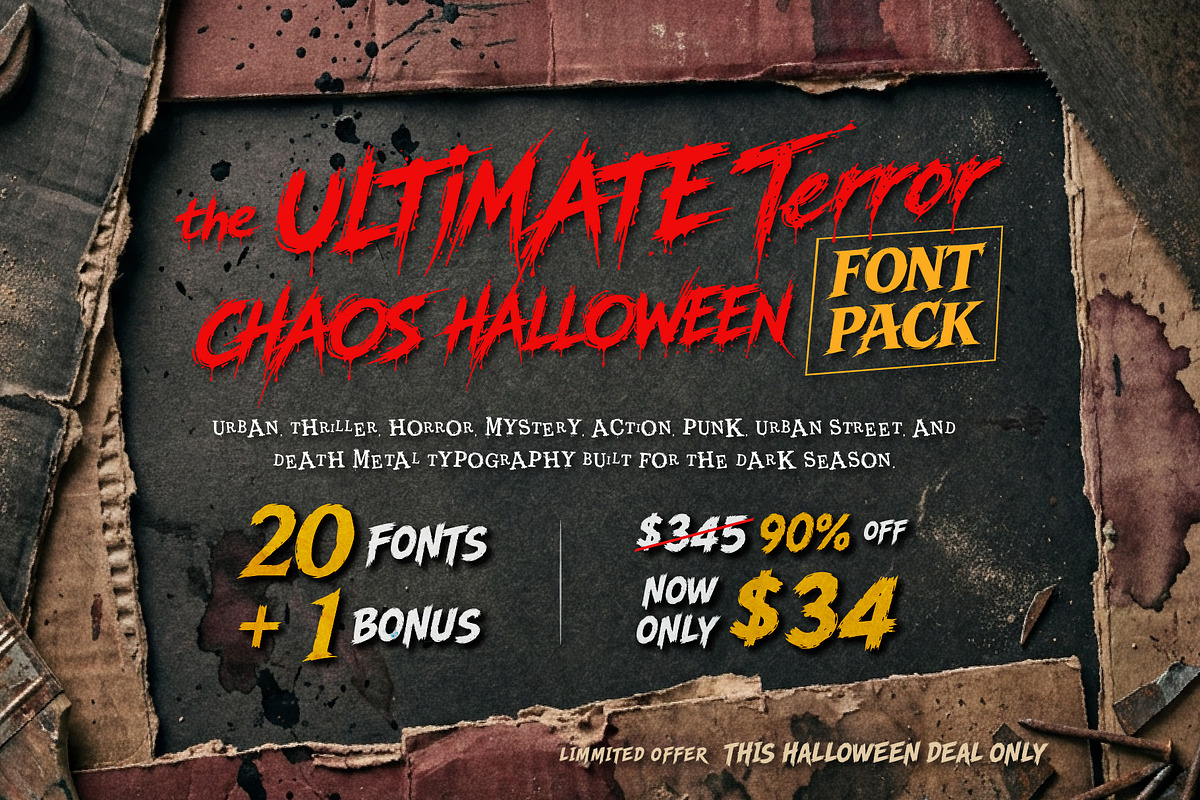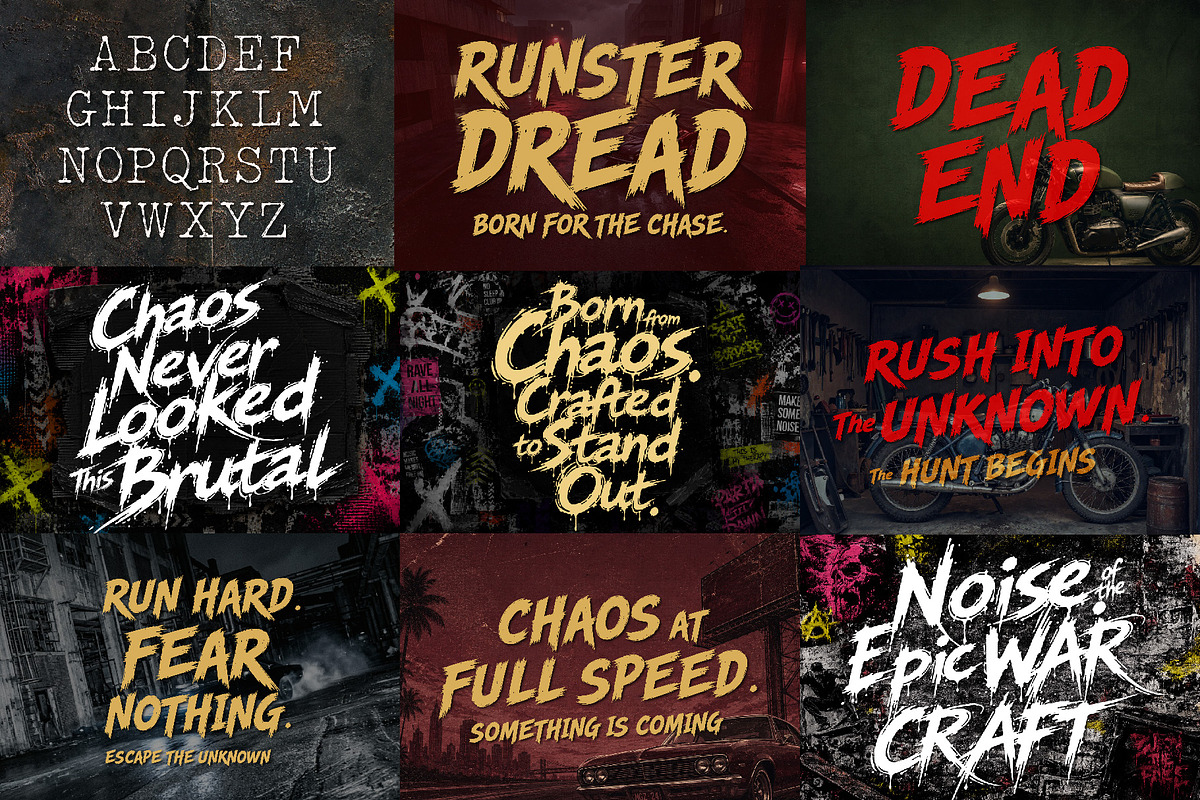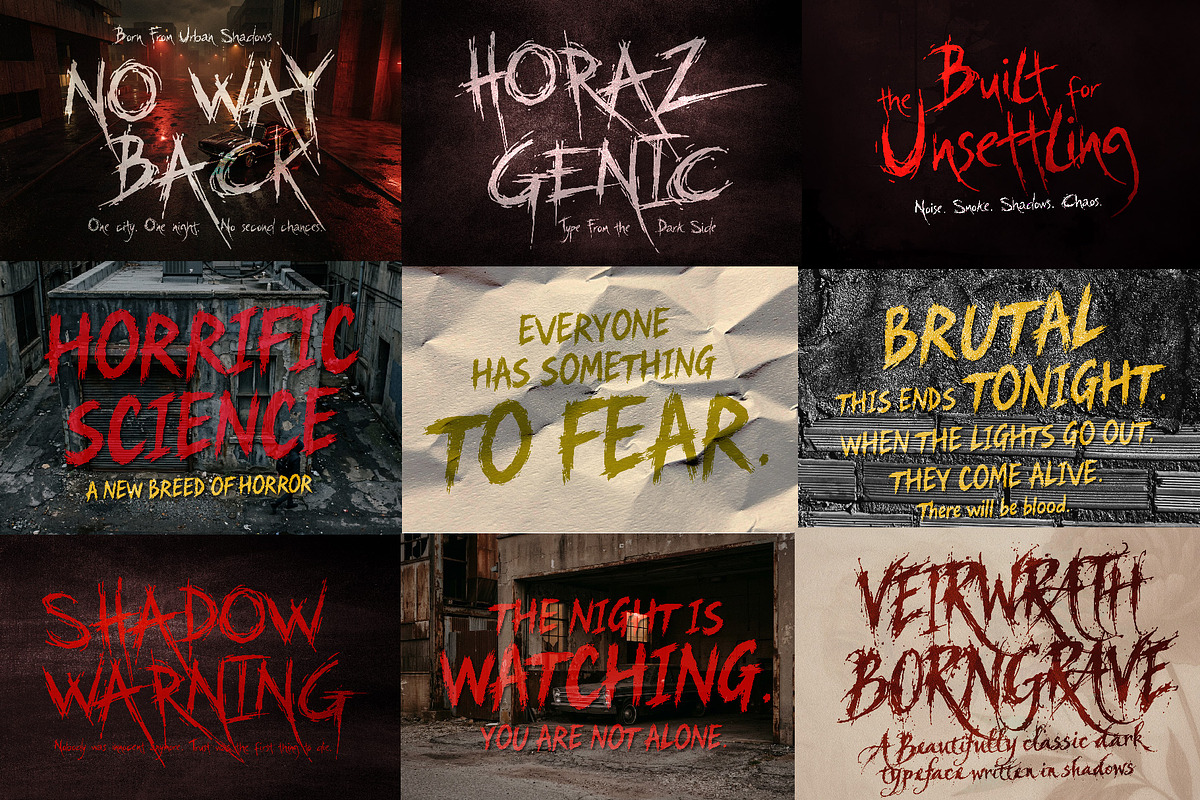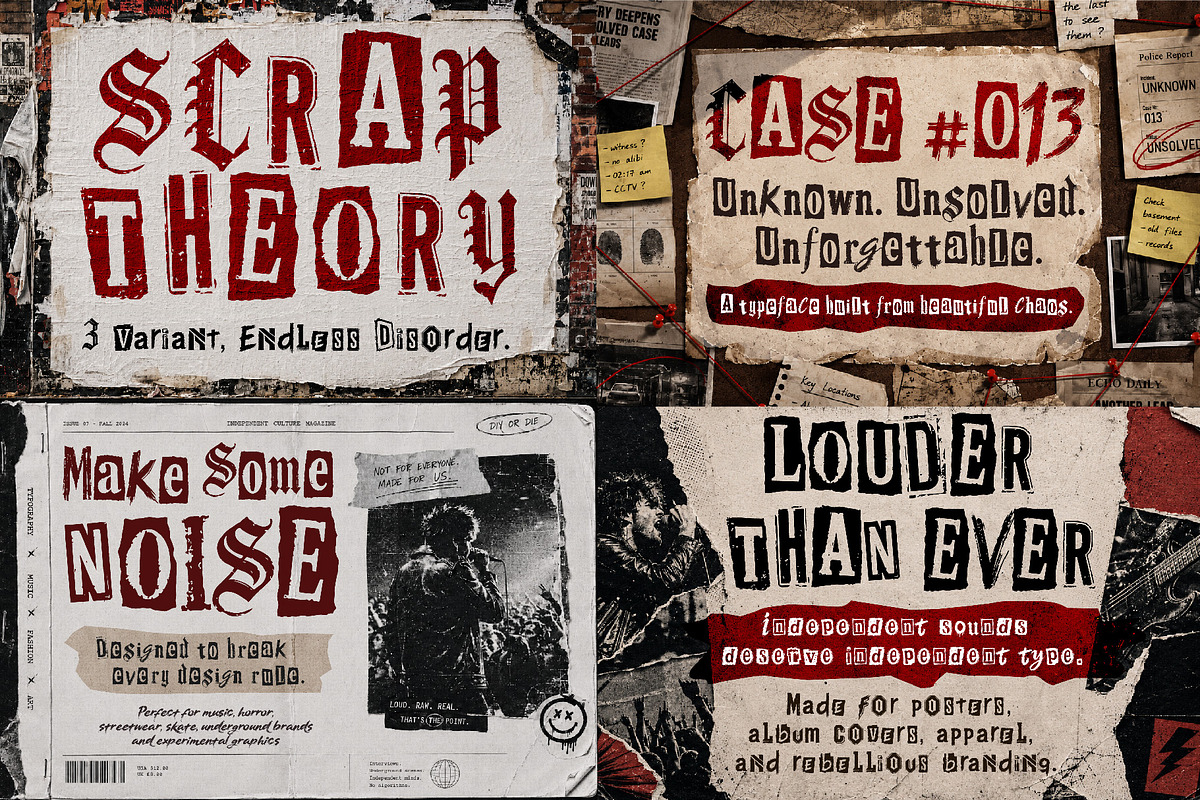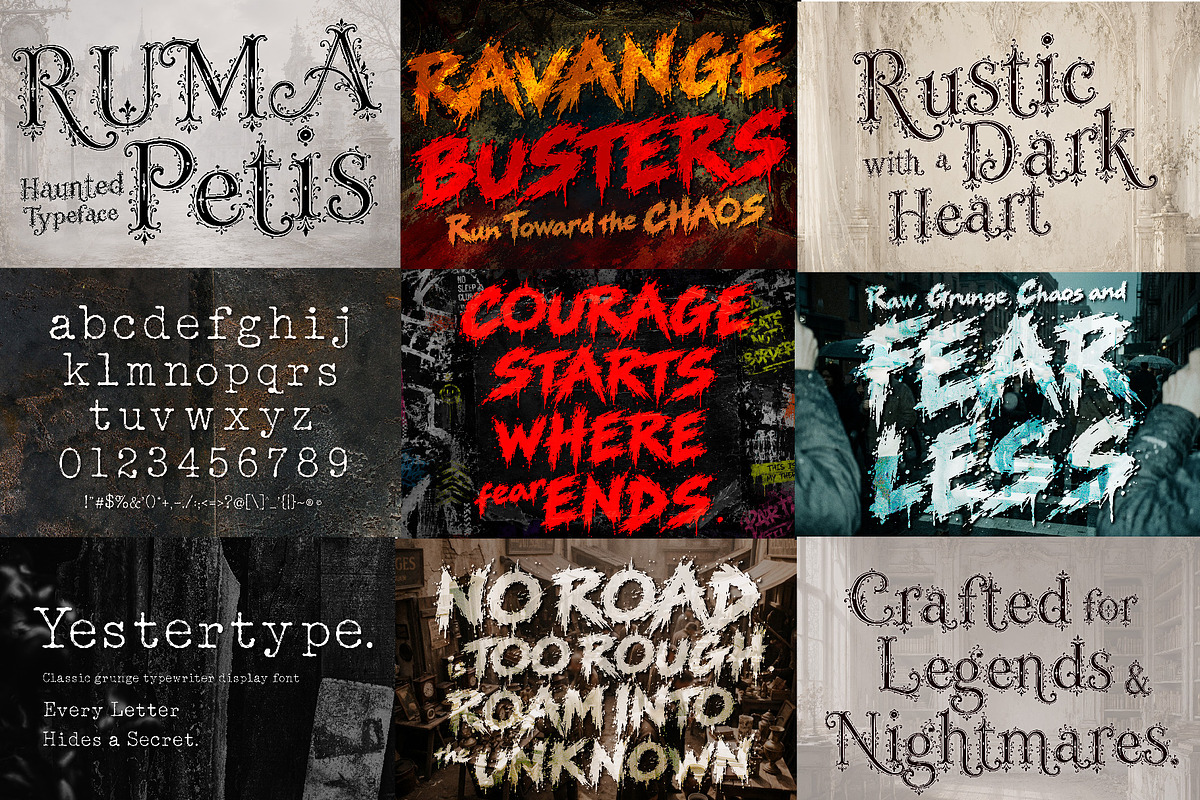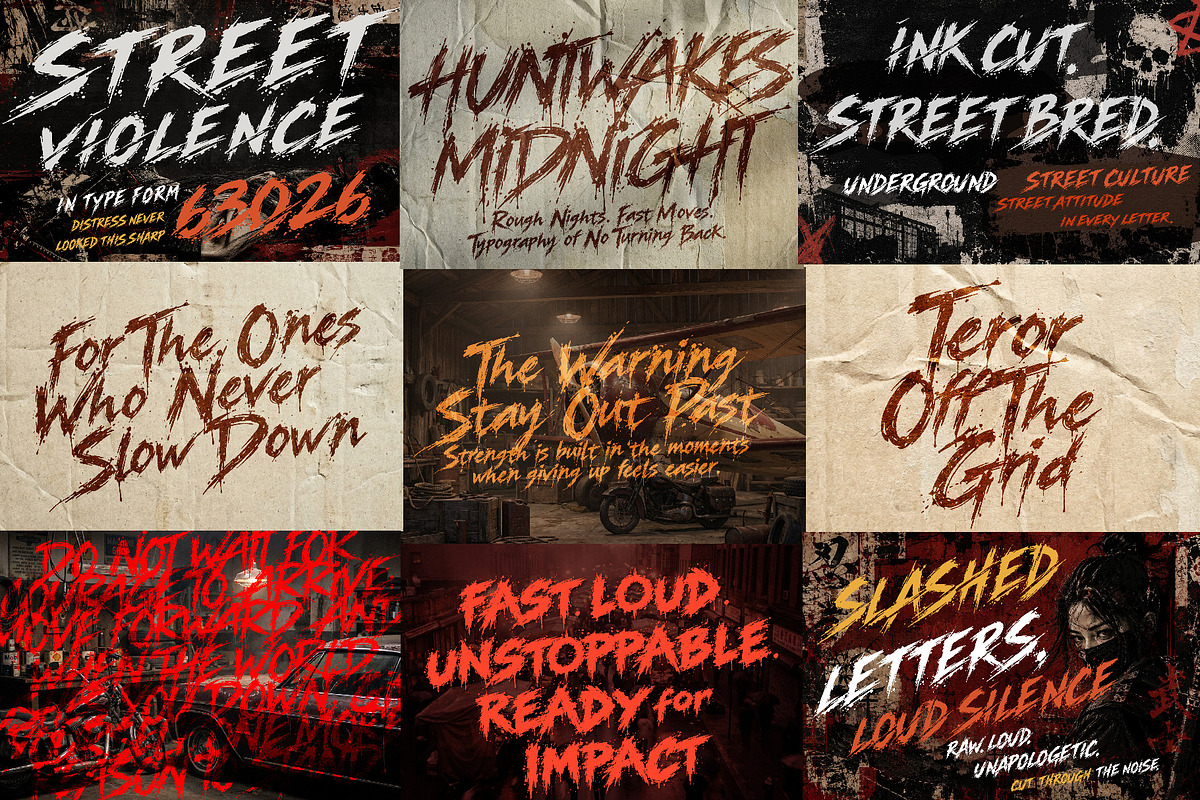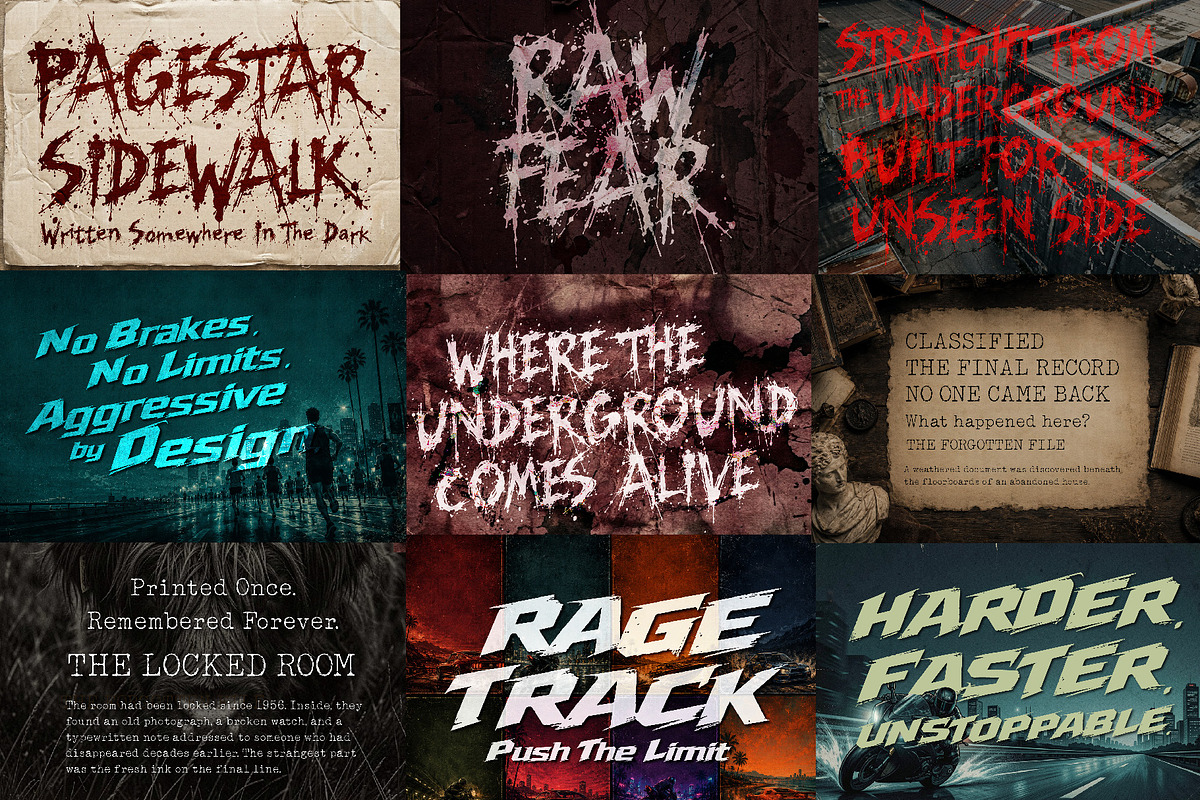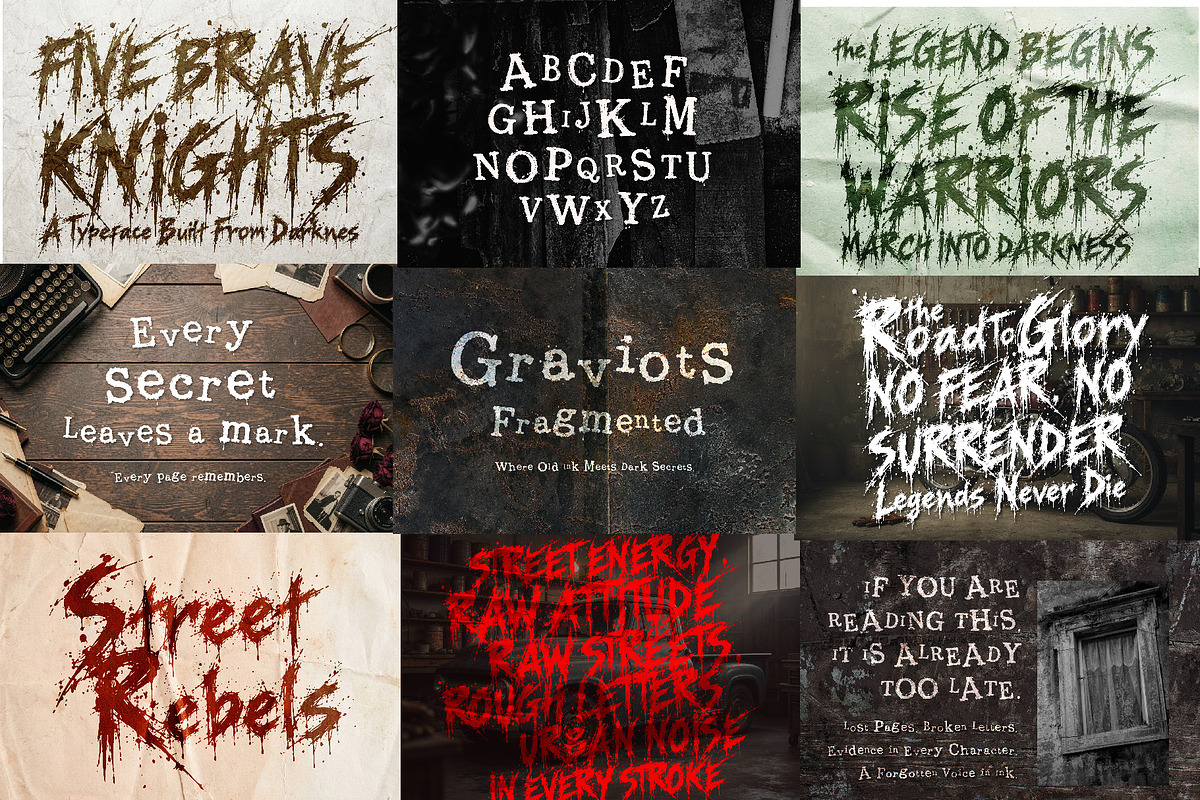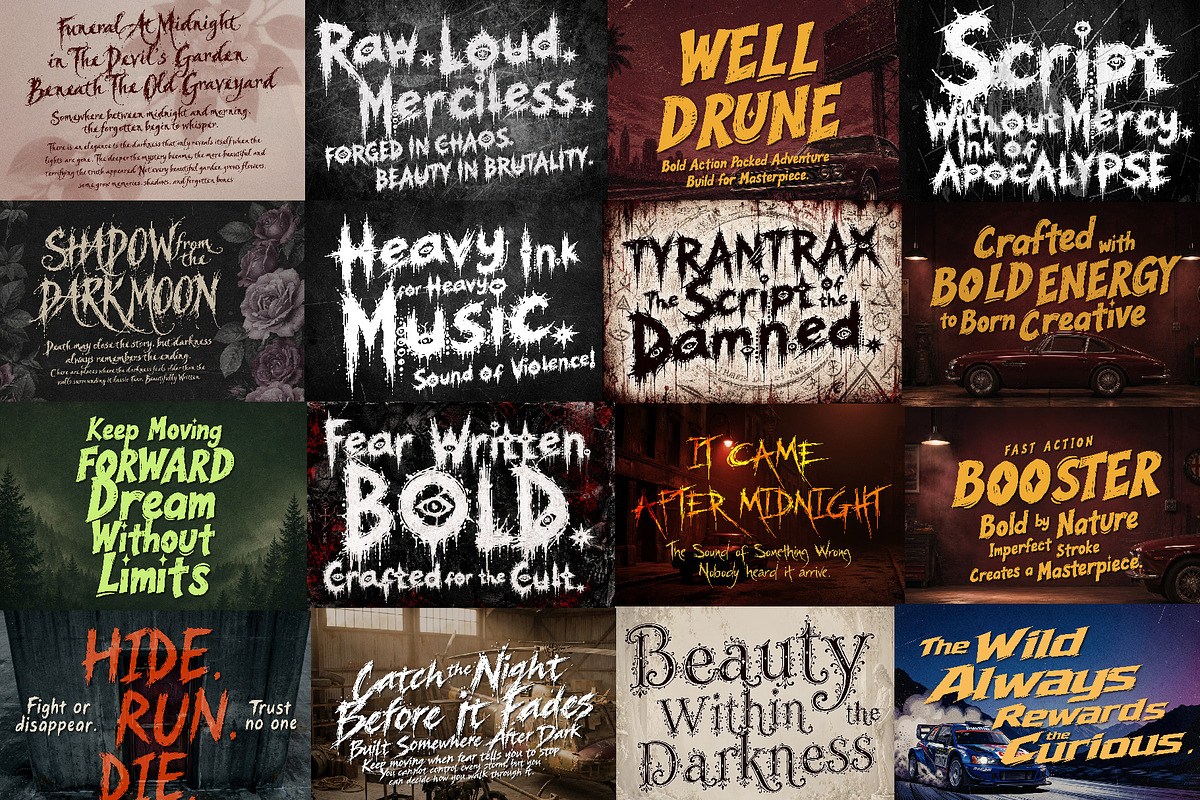
Ultimate Halloween Terror Font Pack
THE ULTIMATE HALLOWEEN CHAOS FONT PACK
Step into the underground with a collection built for darkness, noise, rebellion, and raw visual energy. This Halloween font pack brings together 20 grunge, horror, terror, action, thriller, street, punk, and death metal-inspired typefaces in one massive collection.
From rough urban lettering and chaotic brush strokes to vintage horror textures, broken forms, sinister typewriter details, metal-inspired aggression, and mysterious thriller styles, every font brings its own personality. Whether you're creating a terrifying Halloween poster, underground concert artwork, death metal album cover, streetwear graphic, horror movie title, action campaign, punk design, or dark merchandise, this collection gives you plenty of styles to experiment with.
Huntwakes Midnight — Slash Grunge Font A rough and restless style with midnight urban energy, sharp cuts, and action-thriller attitude.
Five Brave Knights — Darkness & Chaos A chaotic grunge display style with rebellious street energy and aggressive visual movement.
Veirwrath Borngrave — Haunted Beauty Dark, artistic, and mysterious lettering combining vintage horror atmosphere with expressive beauty.
Bewarge Slaughter — Horror Vintage Font A distressed vintage horror style with dramatic character, dark atmosphere, and sinister details.
Pagestar Sidewalk - Mystery Grunge Typewriter A vintage grunge typewriter style filled with mystery, old ink, strange documents, crime stories, and underground atmosphere.
RAVANGE BUSTERS - Bold Grunge Chaos Raw, aggressive lettering made for action, speed, urban chaos, and high-impact graphics.
MoonSlash - Raw Cuts Typeface Sharp, rough, and expressive typography with a cut-up underground character.
Cidera Berius - Suspense Thriller A tense and mysterious style designed for thriller titles, suspense artwork, and dark cinematic projects.
Graviots Fragmented - Broken Letters Distorted and fragmented lettering that brings a fractured, chaotic feeling to posters and experimental artwork.
TyranTrax - Metal & Hardcore Heavy, rebellious typography suited for metal, hardcore music, underground artwork, and extreme designs.
AGERDON - Brutal Grunge Core A hard-edged grunge style with raw underground energy and an intense visual personality.
ShycoBlaze - Metal, Skate, Rock & Punk A rebellious typeface inspired by skate culture, punk attitude, rock music, and underground scenes.
Horaz Genic — Raw Grunge Horror Font Dirty, distressed, and unsettling lettering for horror posters, Halloween artwork, and dark designs.
RageTrack - Fast Action Speed Dynamic typography built around speed, movement, racing, action, and adrenaline.
Yestertype - Classic Grunge Typewriter A worn typewriter style with vintage mystery, old documents, crime stories, and forgotten-case atmosphere.
HorrificScience - Horror Thriller Font A strange and unsettling style made for horror, thriller, Halloween, mystery, and cinematic designs.
Runster Dread - Raw Intense Font Dark, energetic lettering with a rough personality suited for action, horror, street graphics, and intense headlines.
RumaPetis - Quiet Horror Typeface A more restrained horror style with eerie atmosphere, mystery, and unsettling cinematic character.
CultsithRitual - Cursed & Damned A sinister display style inspired by cursed stories, dark rituals, occult atmosphere, and underground horror.
Halloween posters • Horror artwork • Thriller titles • Terror graphics • Death metal covers • Metal & hardcore artwork • Punk posters • Streetwear • Urban graphics • Underground events • Horror movies • Mystery book covers • Album artwork • Concert posters • Gaming graphics • Action posters • Racing designs • Skate graphics • Dark merchandise • T-shirt designs • Social media artwork
20 Dark Styles + 1 BONUS FONT with 3 variants - made for the underground, the rebellious, and everything that comes alive after dark.